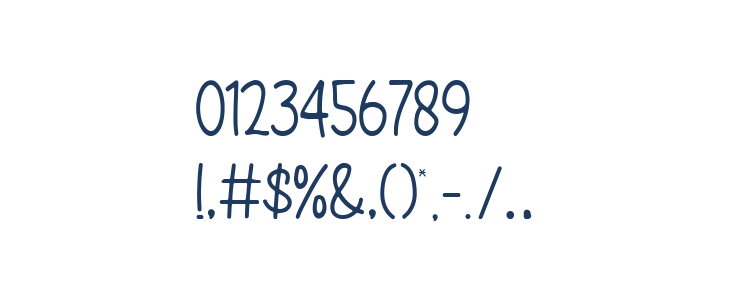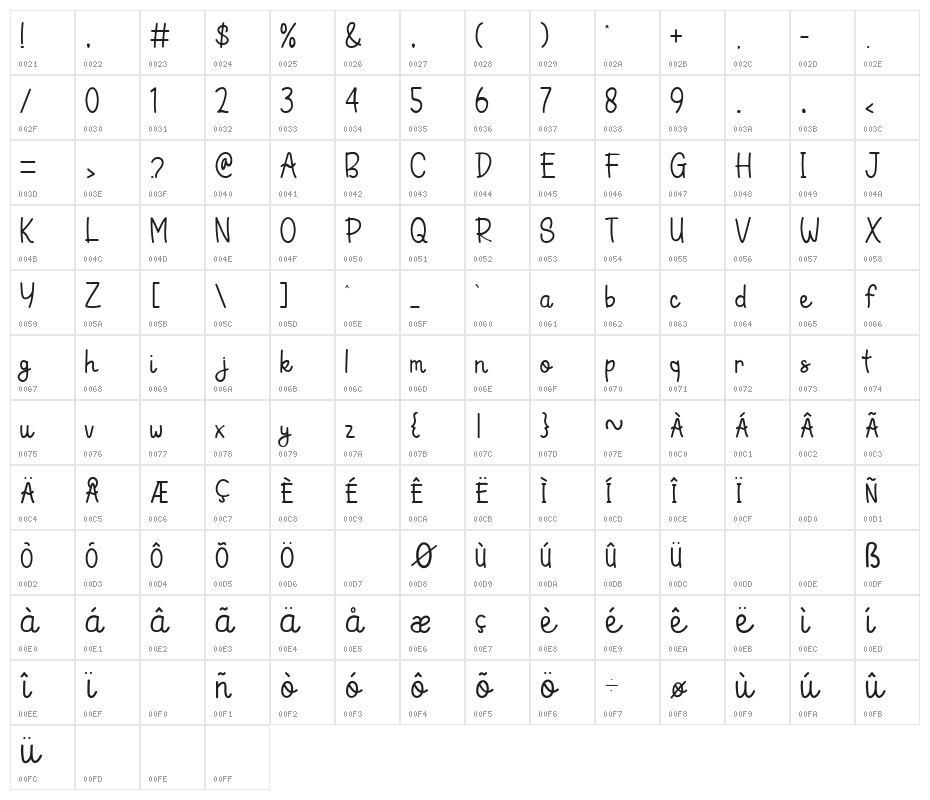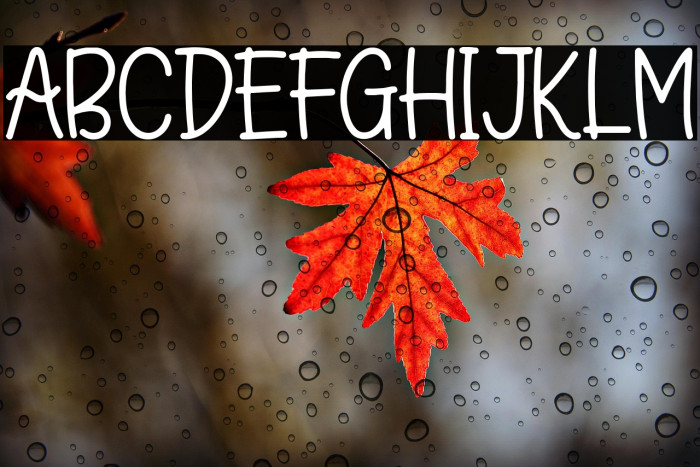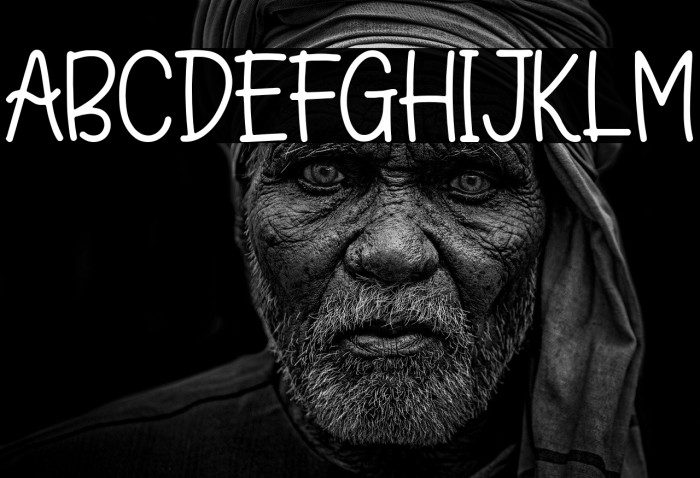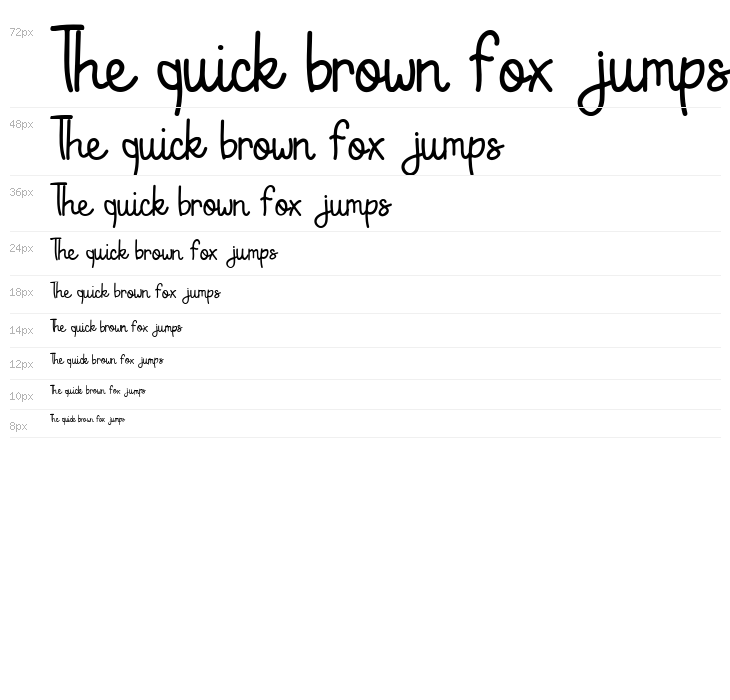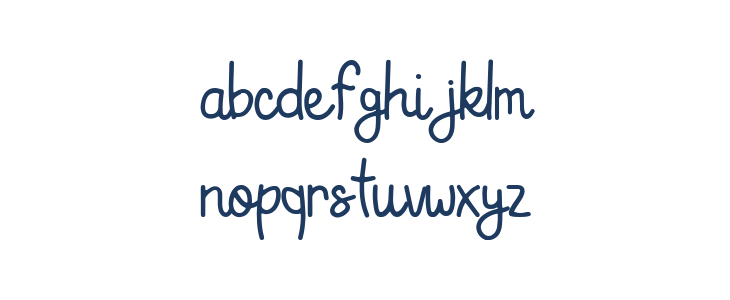
Black Tea Font
Black Tea Description
This font features a playful and casual handwritten style, characterized by its smooth, rounded edges and slightly irregular letterforms. The uppercase letters are bold and prominent, while the lowercase letters maintain a consistent flow, adding to the font's approachable and friendly appearance. The numerals are clear and easy to read, matching the overall aesthetic of the alphabet. Special characters are included, maintaining the same playful style, making this font versatile for various uses. The overall design is informal yet legible, suitable for projects that require a personal touch.
| Overall Style | Casual |
| Use Case | Logos, Headlines, Informal Text |
| Proposed Projects | Ideal for greeting cards, children's books, casual branding, and social media graphics. |